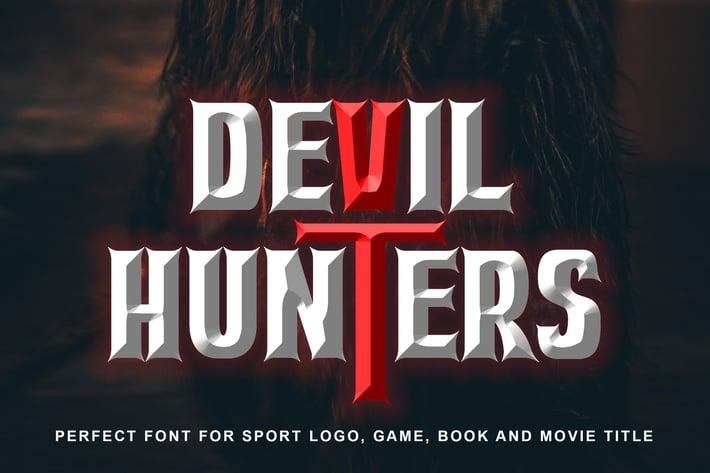
Devil Hunter Esport Logo Font
Devil Hunter is Clever Esport Logo Font. It can easily be matched to an incredibly large set of projects, so add it to your creative ideas and notice how it makes them stand out! And use it for your esport logo